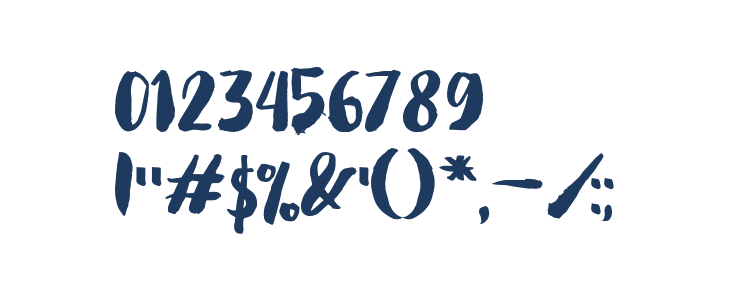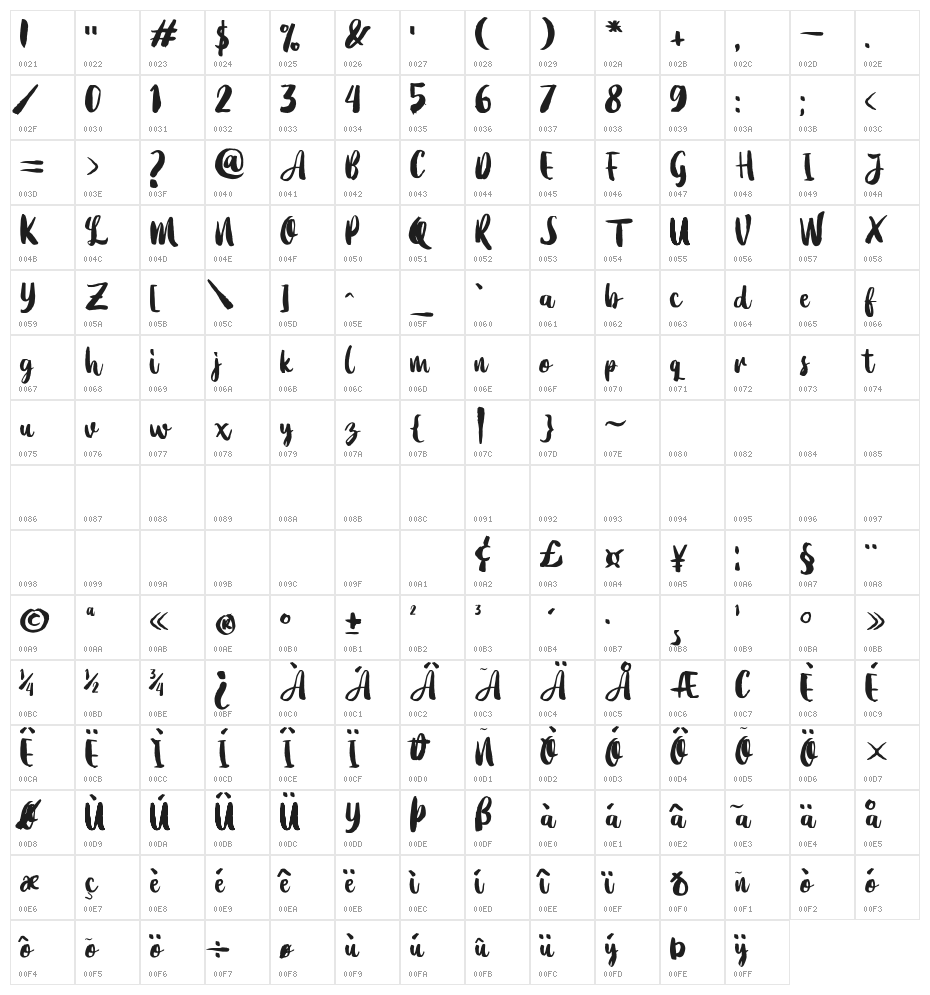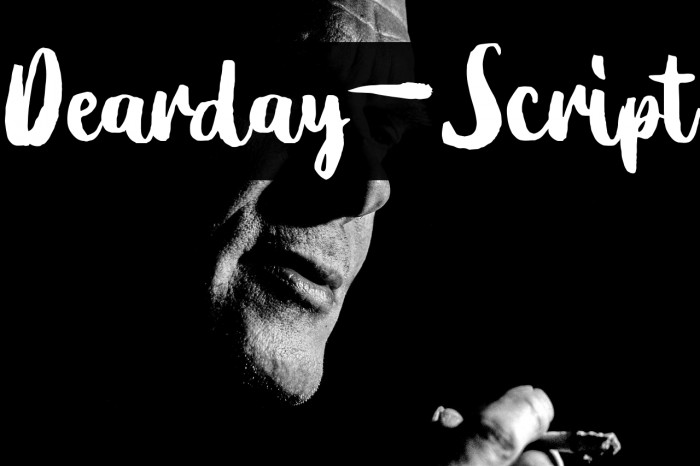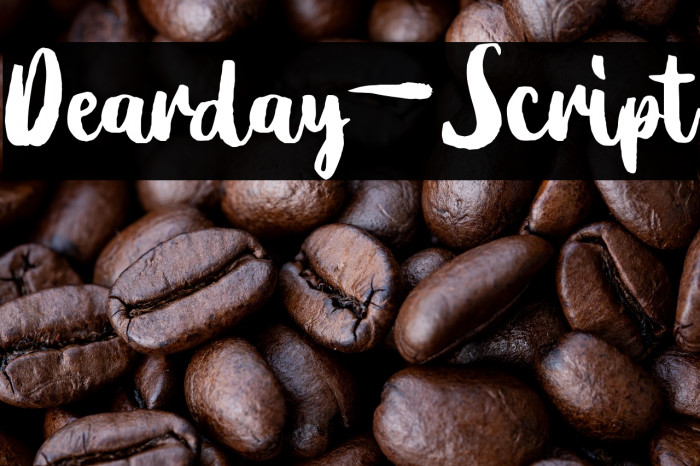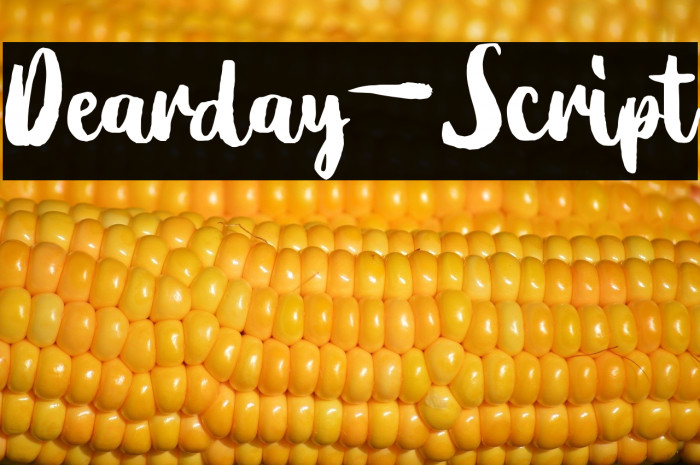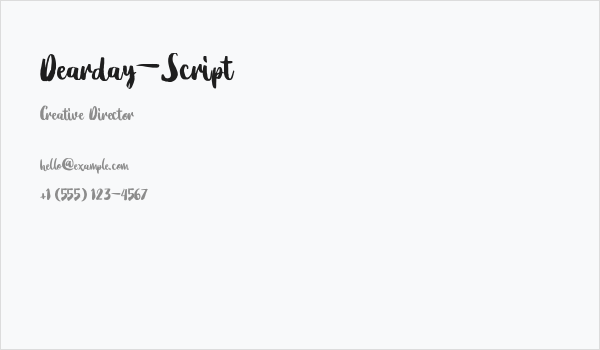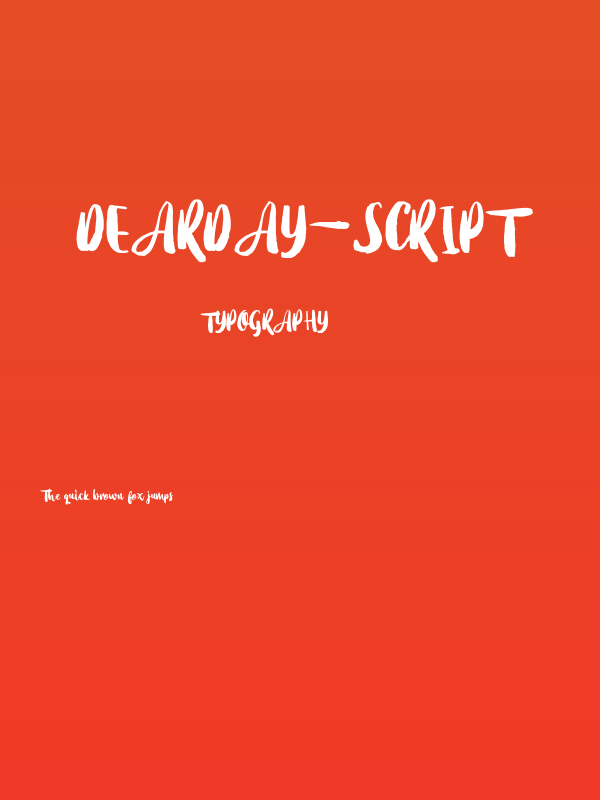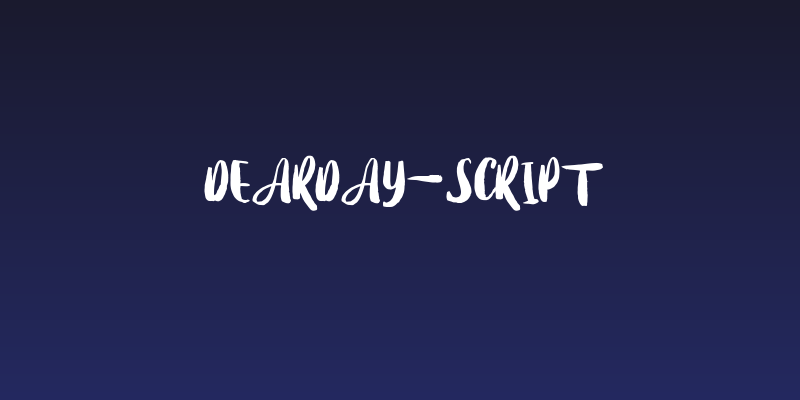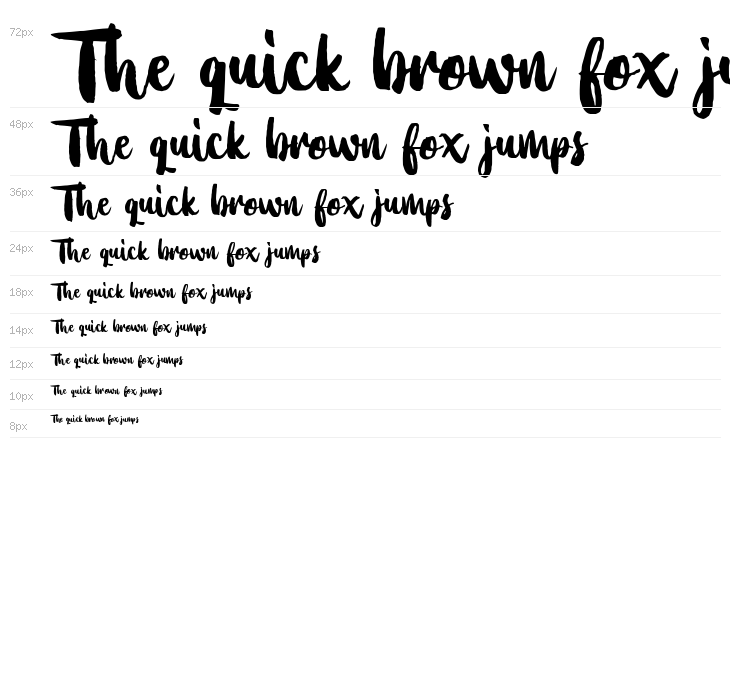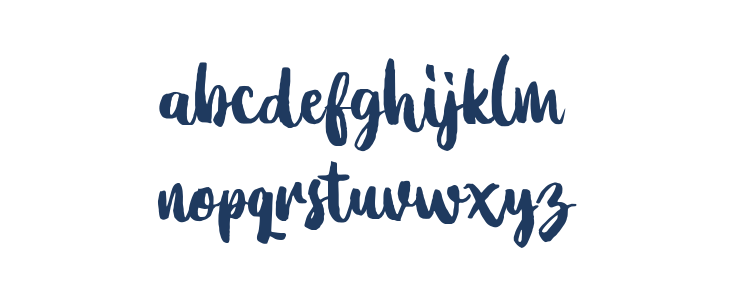
Dearday-Script Font
Dearday-Script Description
This font features a bold and expressive script style, characterized by its fluid and dynamic strokes. The letters have a hand-painted appearance, with varying thickness that adds a sense of movement and energy. The uppercase letters are bold and prominent, while the lowercase letters maintain a consistent flow, enhancing readability. The numbers and special characters follow the same artistic style, making them suitable for creative and eye-catching designs. The overall aesthetic is both playful and elegant, making it ideal for projects that require a personal touch.
| Use Case | Logos, Headlines, Artistic designs |
| Proposed Projects | Perfect for invitations, greeting cards, branding, and artistic posters. |